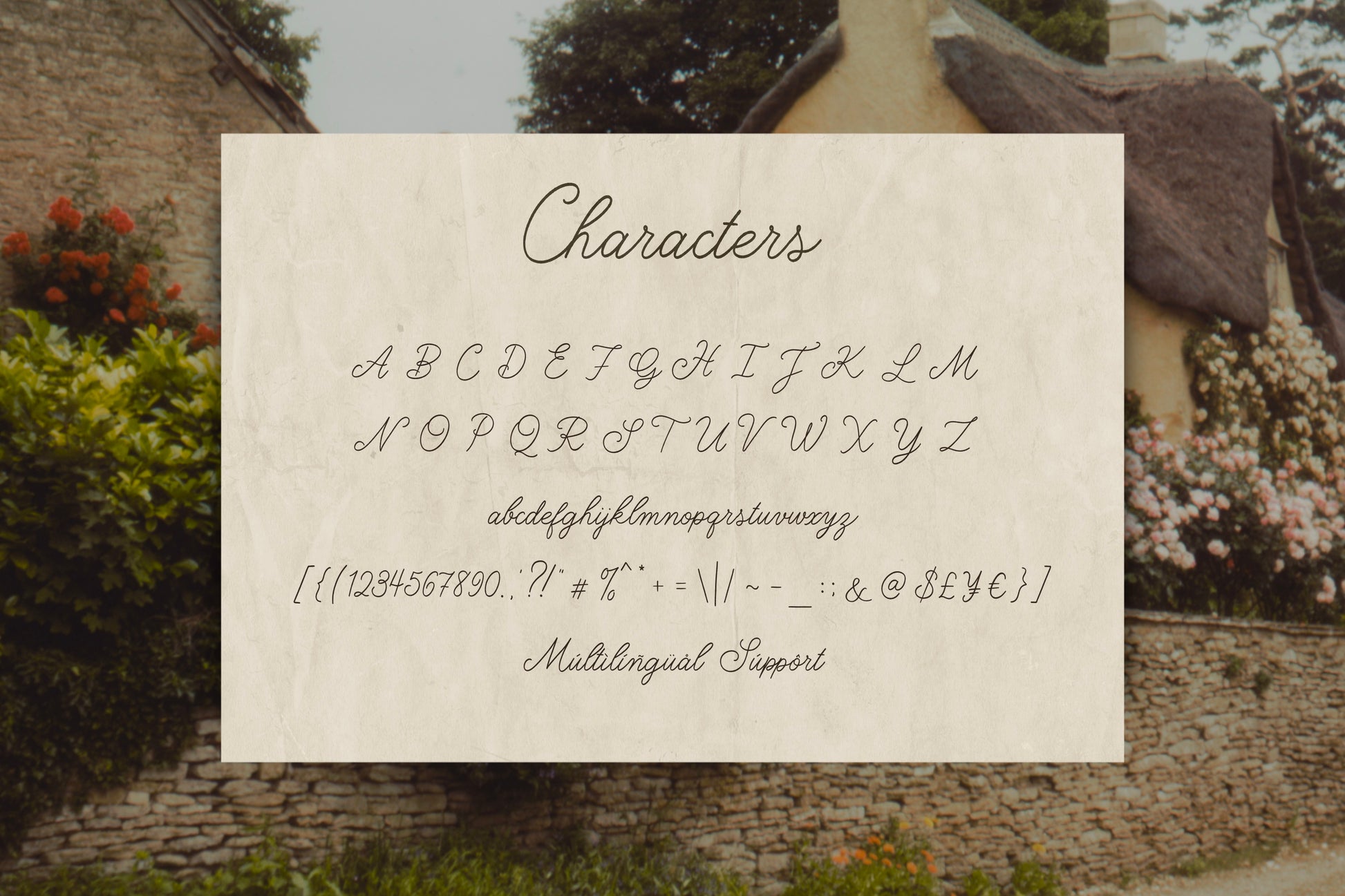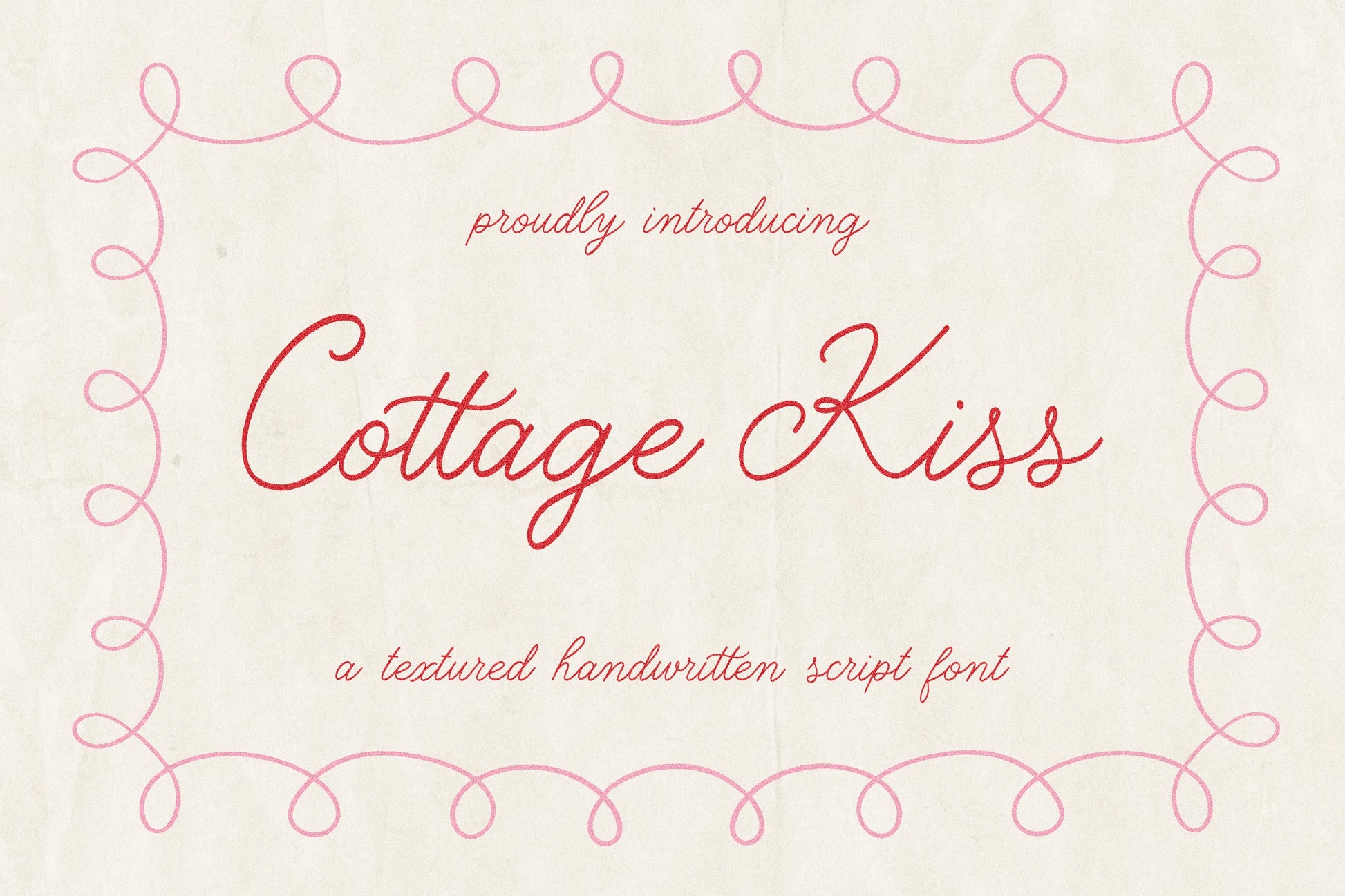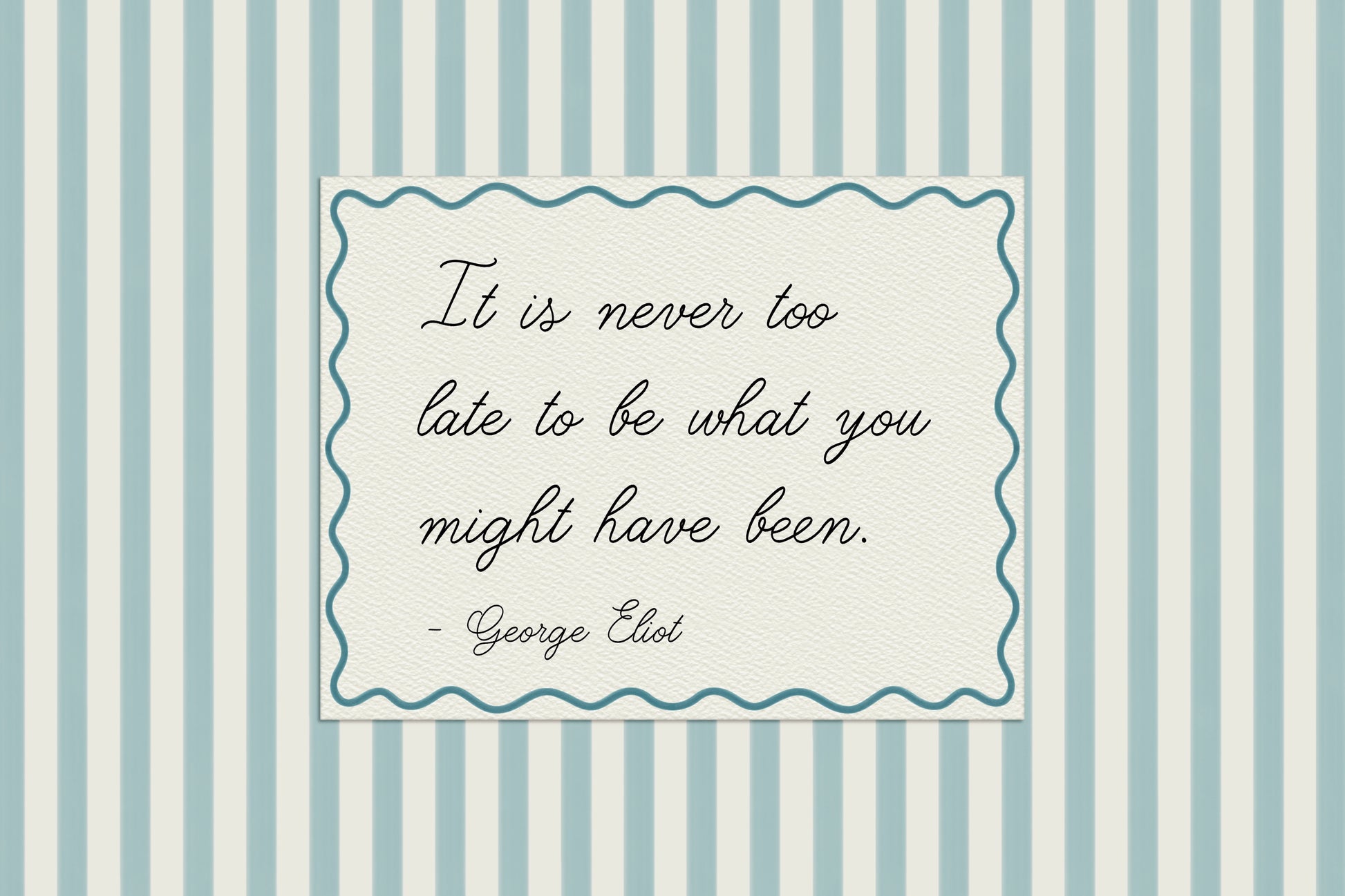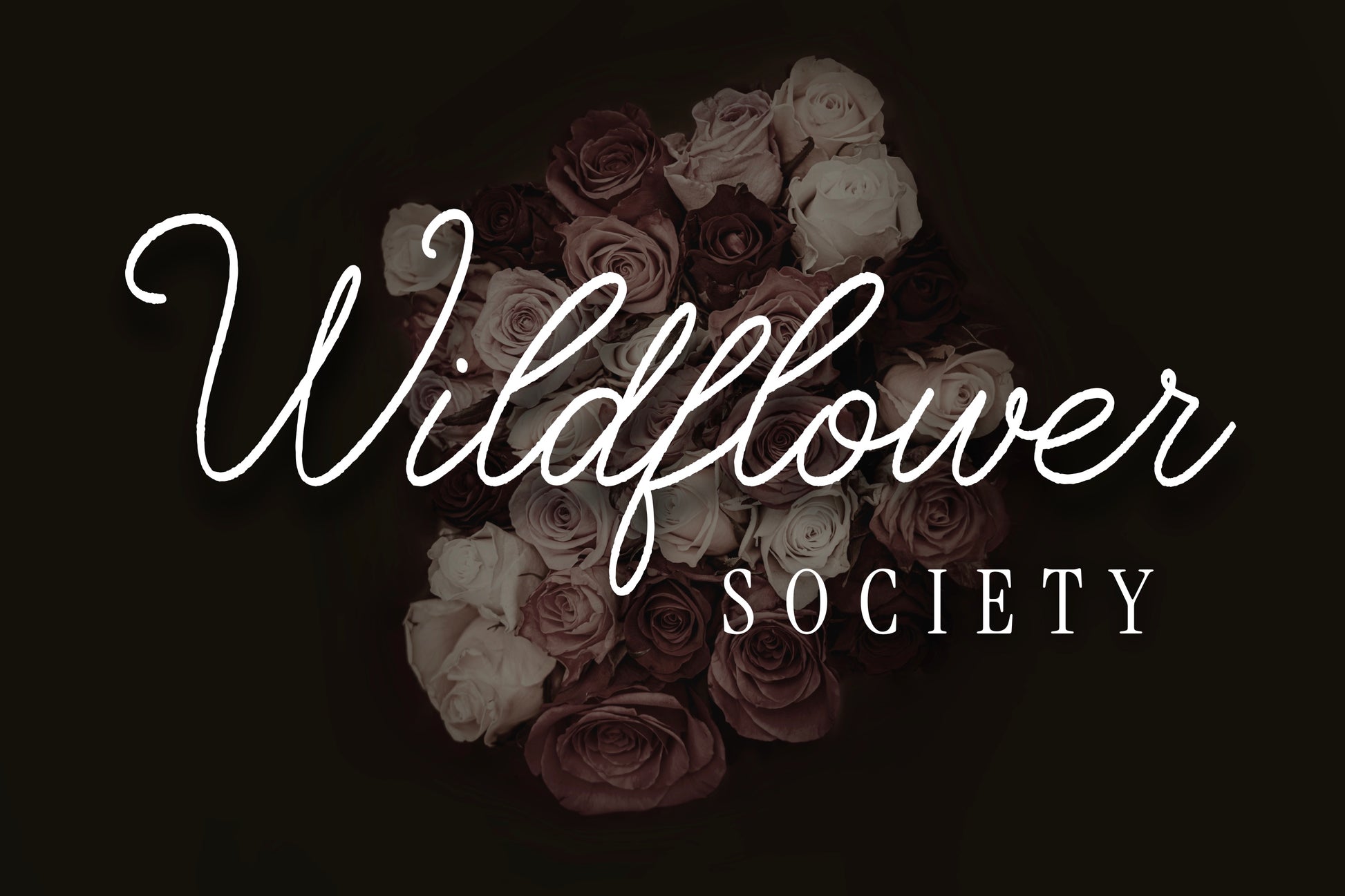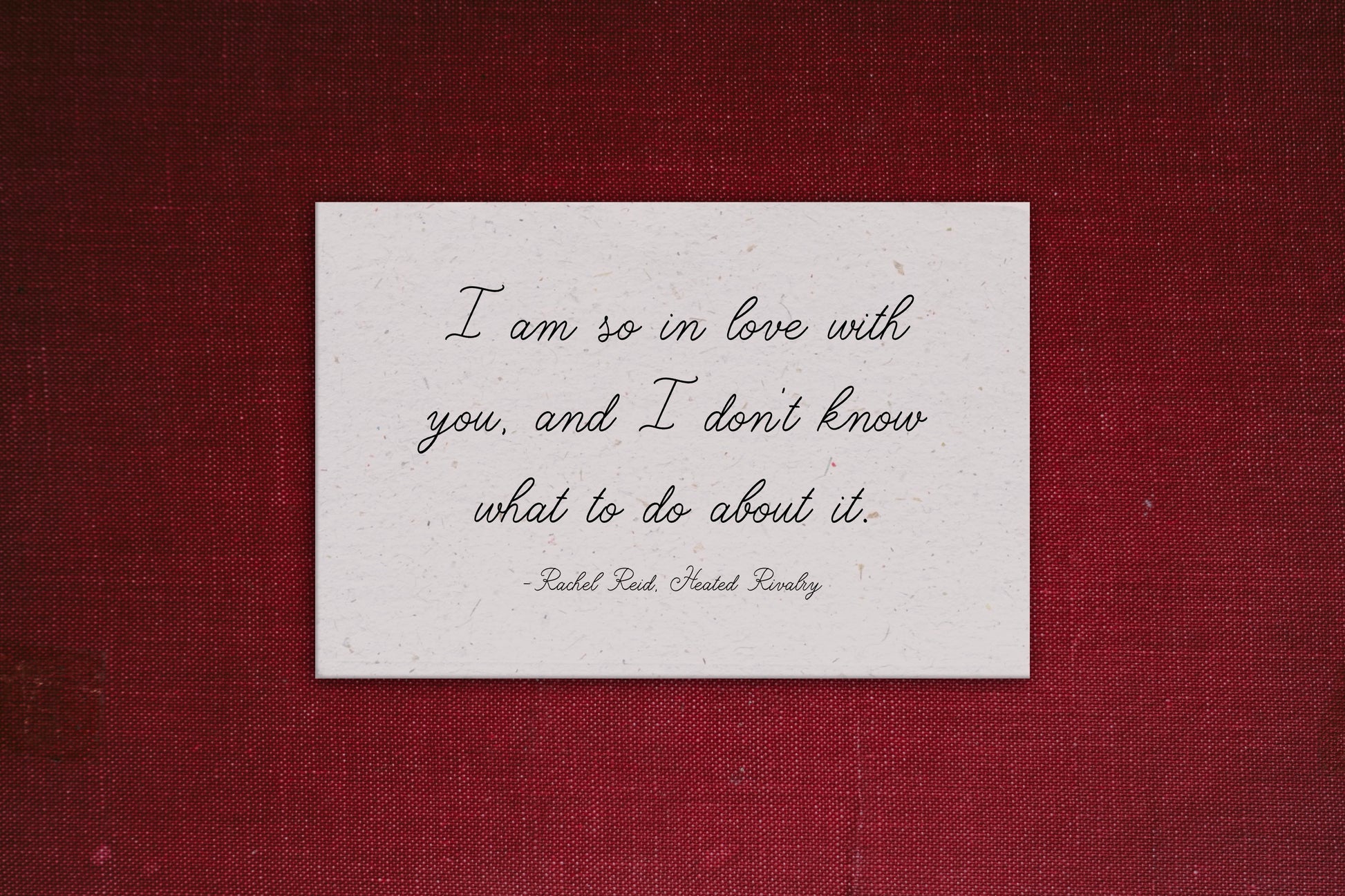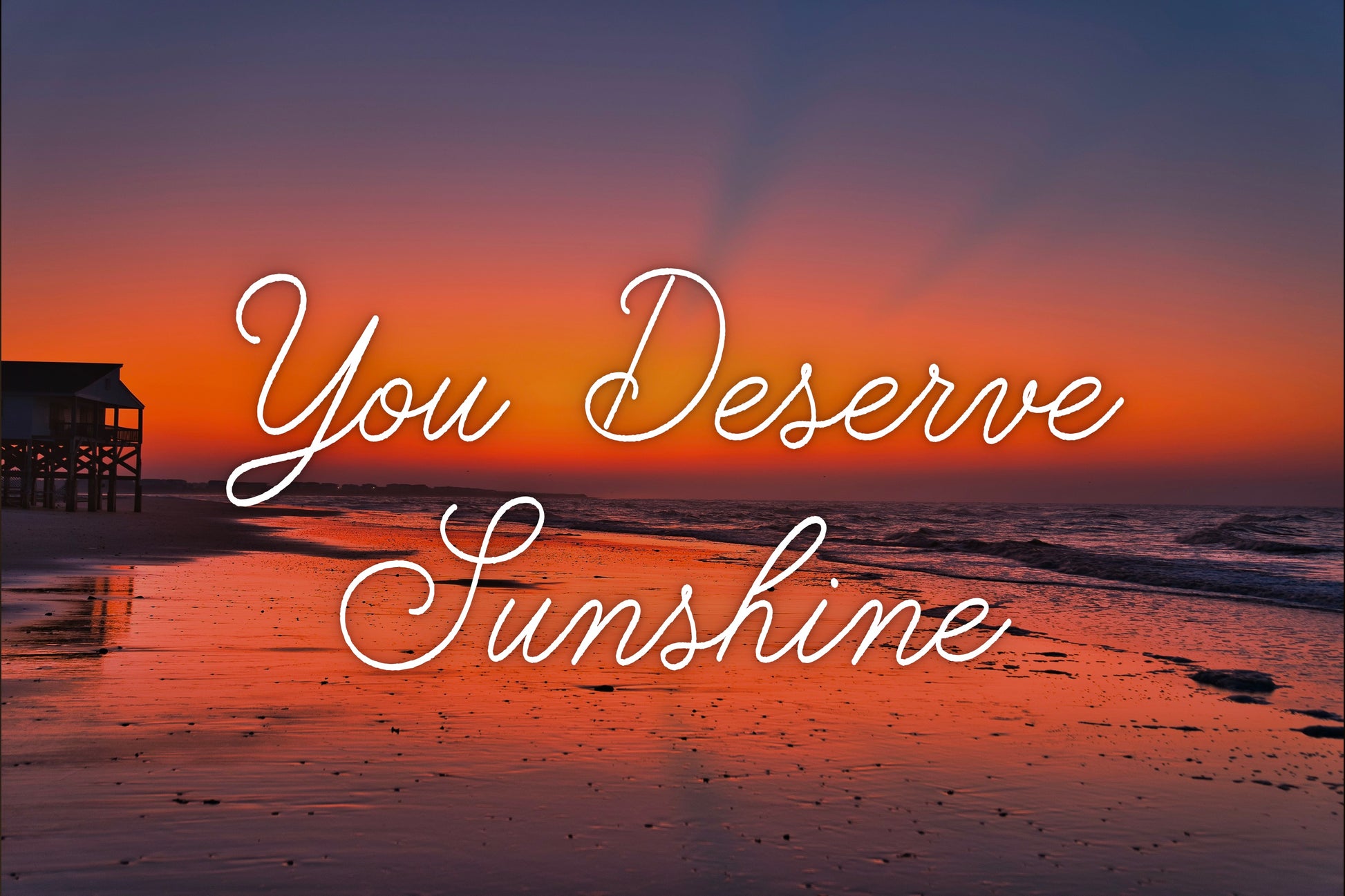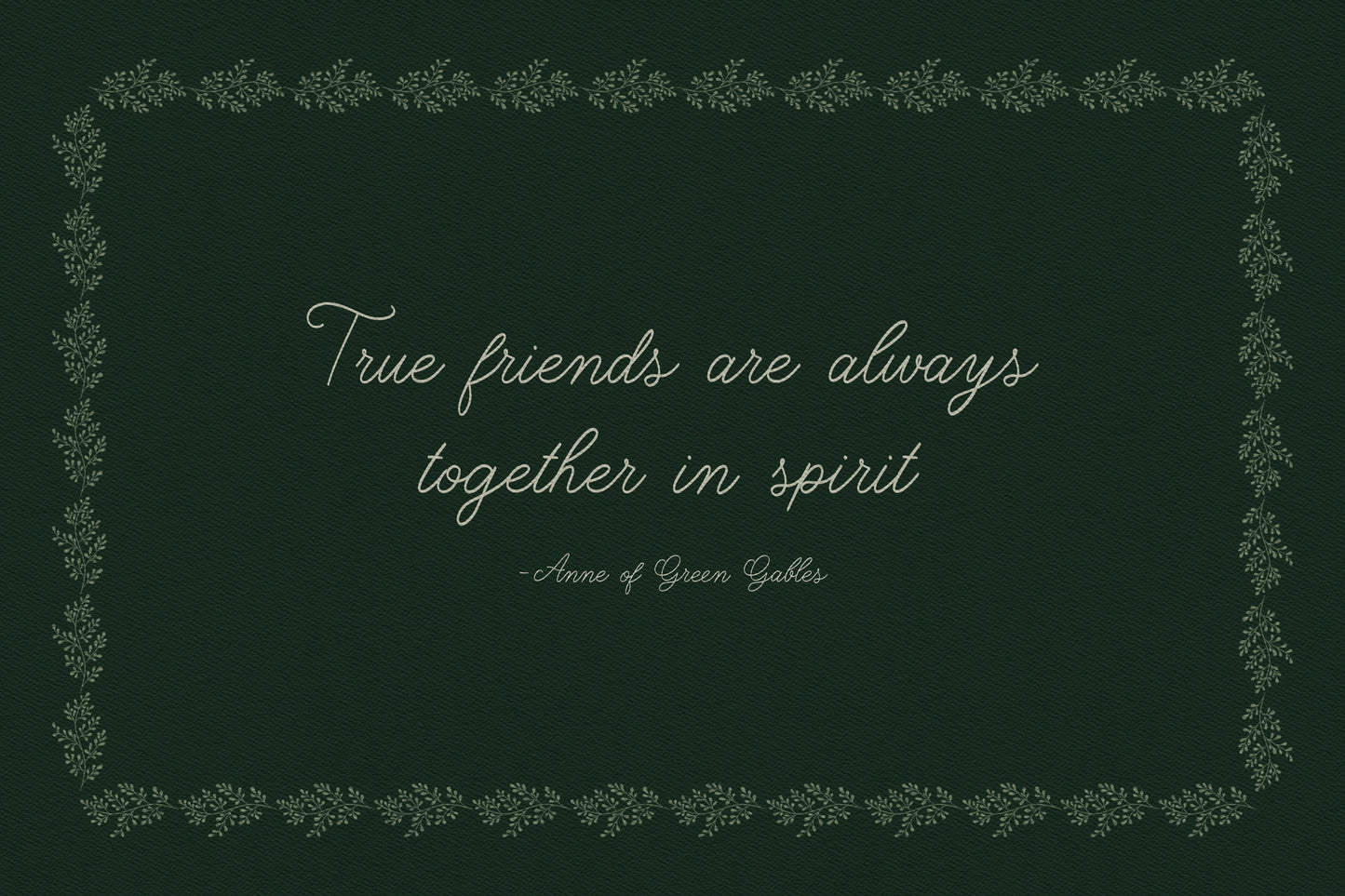
Cottage Kiss | Natural Script Font
Introducing a cozy, natural, handwritten font: Cottage Kiss! This cozy cursive has a little rough texture that will add an organic yet elevated touch to any design! It is perfect for any and all logos, branding, invitations, stickers, t-shirts, posters, and much more!